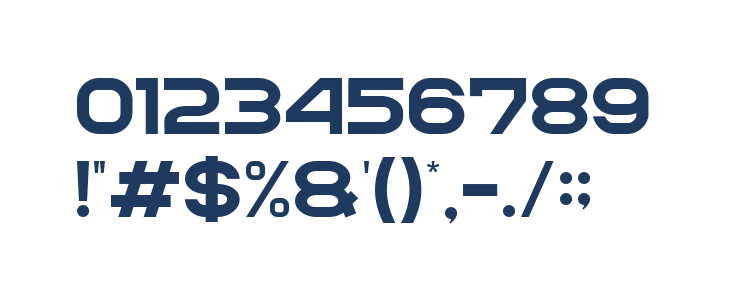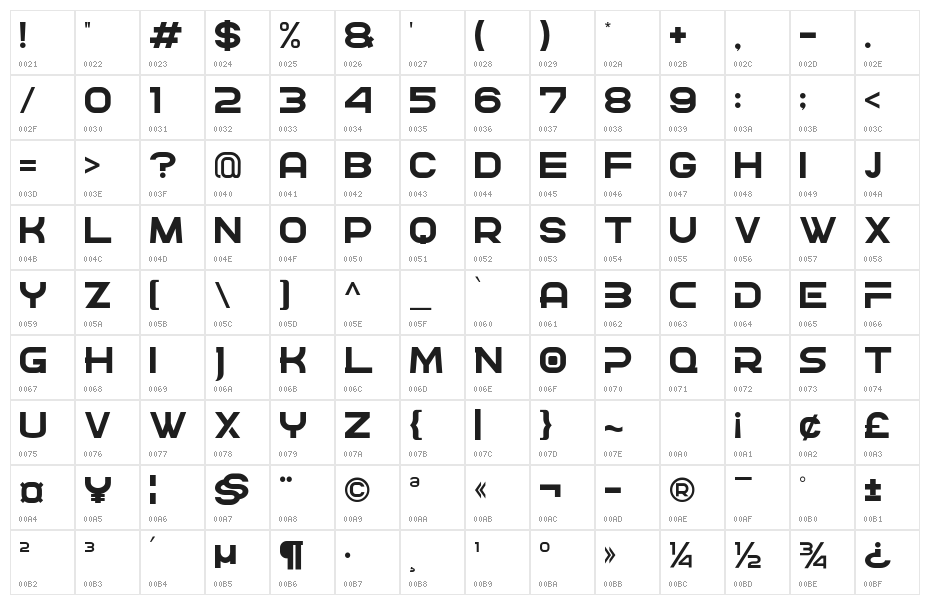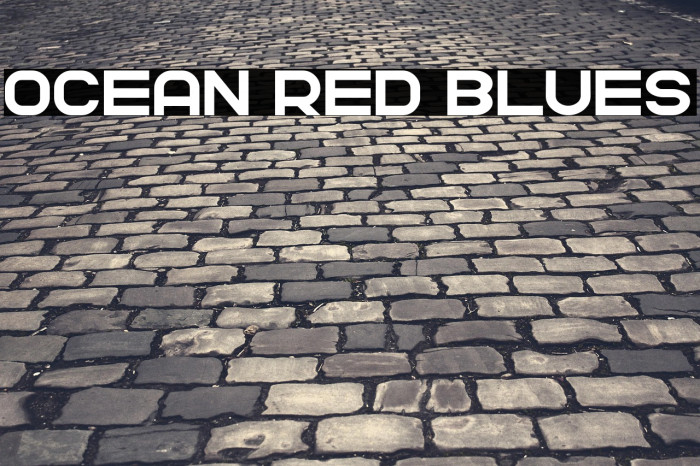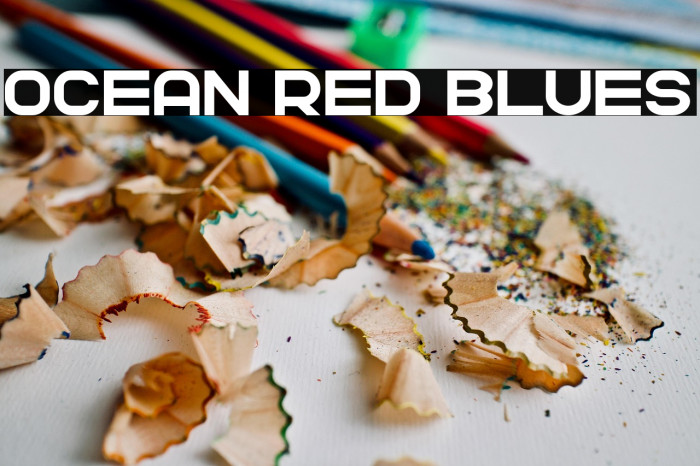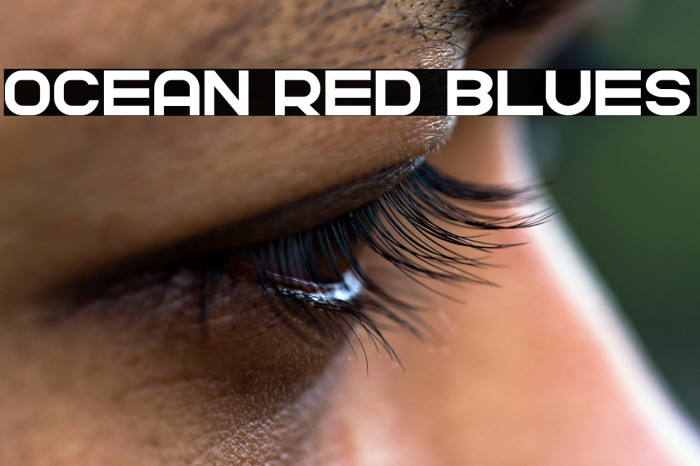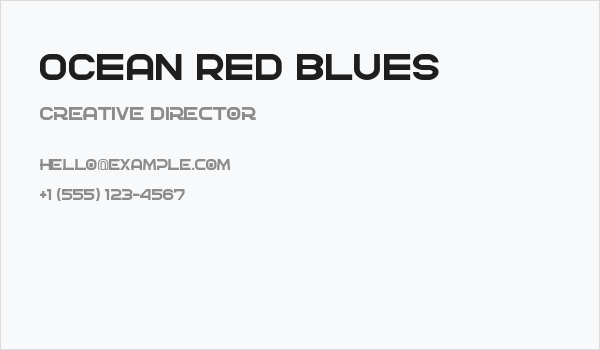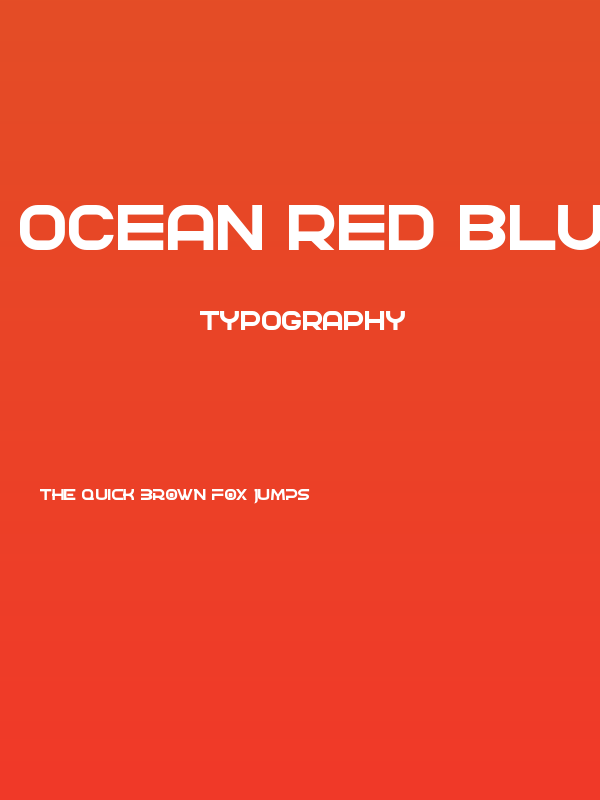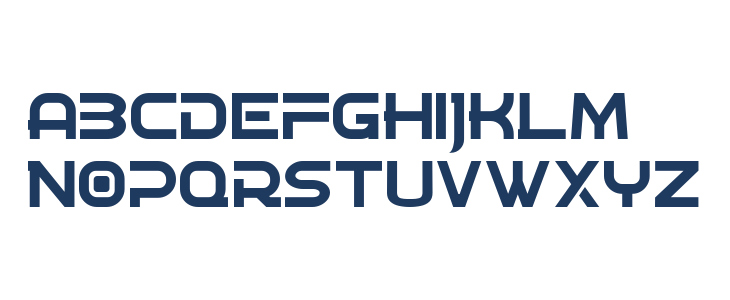
OCEAN RED BLUES Font
OCEAN RED BLUES Description
This font features a bold and modern design with a geometric and futuristic aesthetic. The characters are constructed with clean, straight lines and sharp angles, giving it a strong and assertive presence. The uppercase letters are particularly striking, with a uniform height and width that create a cohesive look. The numerals and special characters maintain the same boldness and clarity, ensuring readability across various applications. The font's design is well-suited for projects that require a contemporary and impactful visual style.
Proposed ProjectsIdeal for branding, advertising, posters, and digital media that require a strong visual impact.